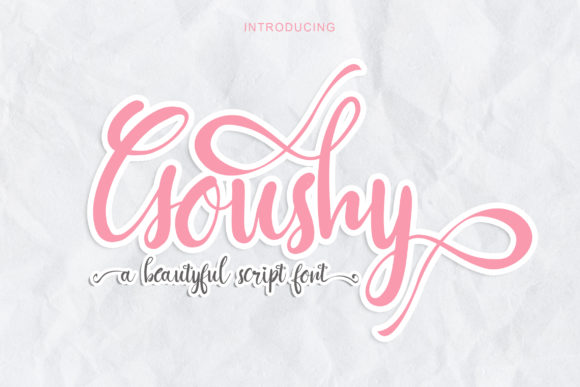
Goushy: A Modern Script Font for Elegant Web Design
As a web designer, finding the right font can make or break your digital projects. Goushy is a fresh and modern script font that adds a touch of whimsy and sophistication to any design. Its delicate and chic style makes it perfect for creating visually appealing and engaging web experiences.
Visual Characteristics and Digital Appeal
Goushy stands out with its elegant, handwritten feel. The flowing, cursive lines give it a personal and approachable vibe, making it ideal for brands that want to convey a sense of luxury and creativity. This font is PUA encoded, meaning you can easily access all of its glyphs and swashes, adding versatility and uniqueness to your designs.
Using Goushy in Web Design
One of the key strengths of Goushy is its ability to enhance visual hierarchy and readability. Here’s how you can incorporate Goushy into various elements of your web design:
- Website Headers and Hero Sections: Use Goushy for large, eye-catching titles. Its fluid, decorative style draws attention and sets the tone for the rest of the page.
- Landing Pages and Call-to-Action Areas: Goushy can be used for short, impactful phrases that encourage users to take action. Its elegance adds a professional and trustworthy feel.
- Online Shop Banners and Product Descriptions: For boutique online stores, Goushy can add a premium and personalized touch to banners and product names, enhancing the overall shopping experience.
- Blog Graphics and Social Media Posts: Goushy’s unique style makes it perfect for blog headers and social media graphics, helping to create a consistent and memorable brand identity.
Readability and User Engagement
While Goushy is visually stunning, it’s important to use it judiciously to maintain readability. Here are some practical tips:
- Mobile Screens and Responsive Layouts: Ensure that Goushy is legible on smaller screens by increasing the font size and using high contrast colors. Test different sizes and weights to find the best balance.
- Dark and Light Backgrounds: Goushy works well on both light and dark backgrounds, but always check the contrast to ensure text is easy to read. Consider using a subtle drop shadow or outline if needed.
- Image Overlays: When using Goushy over images, make sure the text is clear and not overshadowed by the background. A semi-transparent overlay or a solid color box can help.
Font Pairing and Brand Identity
To create a balanced and professional look, pair Goushy with simpler, more readable fonts. For example, combining Goushy with a clean sans serif font like Arial or Helvetica for body text can create a harmonious and effective design. If you’re aiming for a more editorial feel, consider pairing Goushy with a classic serif font like Times New Roman or Georgia.
Practical Considerations
In summary, Goushy is a modern and elegant script font that can elevate your web design projects. By using it thoughtfully and strategically, you can create a visually appealing and engaging user experience that enhances your brand’s identity and professionalism.